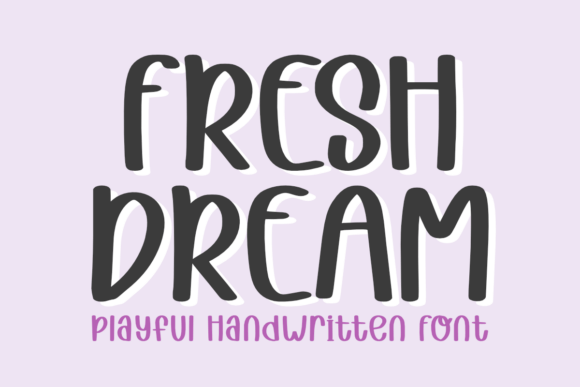
Introducing Fresh Dream Font: The Perfect Blend of Boldness and Whimsy
Are you looking for a font that can add a touch of charm and friendliness to your designs? Look no further than Fresh Dream Font, a bold yet whimsical handwritten font that’s perfect for a variety of creative projects. With its rounded curves and clean letterforms, Fresh Dream is sure to bring a cheerful, hand-drawn feel to your designs.
What is Fresh Dream Font?
Fresh Dream Font is a unique and versatile font that’s designed to add a personal touch to your designs. Its bold and whimsical style makes it perfect for kids’ projects, quotes, posters, social media graphics, and any design that needs a friendly and approachable feel.
One of the standout features of Fresh Dream Font is its rounded curves and clean letterforms. These characteristics give the font a soft and playful feel that’s sure to capture the attention of your audience. Whether you’re designing for print or digital media, Fresh Dream Font is a great choice.
Key Features of Fresh Dream Font
- Bold yet whimsical style: Fresh Dream Font has a bold and confident style that’s balanced by its whimsical and playful feel.
- Rounded curves and clean letterforms: The font’s rounded curves and clean letterforms give it a soft and approachable feel.
- Perfect for kids’ projects: Fresh Dream Font is a great choice for kids’ projects, such as children’s books, educational materials, and kids’ party invitations.
- Suitable for quotes and posters: The font’s bold and eye-catching style makes it perfect for quotes and posters.
- Great for social media graphics: Fresh Dream Font is a great choice for social media graphics, such as Facebook posts, Instagram stories, and Twitter headers.
Use Cases for Fresh Dream Font
Fresh Dream Font is a versatile font that can be used in a variety of creative projects. Here are some use cases to get you started:
- Kids’ projects: Fresh Dream Font is perfect for kids’ projects, such as children’s books, educational materials, and kids’ party invitations.
- Quotes and posters: The font’s bold and eye-catching style makes it perfect for quotes and posters.
- Social media graphics: Fresh Dream Font is a great choice for social media graphics, such as Facebook posts, Instagram stories, and Twitter headers.
- Branding and packaging: The font’s unique and playful style makes it a great choice for branding and packaging design.
Why Choose Fresh Dream Font?
There are many reasons why you should choose Fresh Dream Font for your next creative project. Here are a few:
- Unique and playful style: Fresh Dream Font has a unique and playful style that’s sure to capture the attention of your audience.
- Versatile and adaptable: The font is versatile and adaptable, making it perfect for a variety of creative projects.
- Easy to read and understand: Fresh Dream Font is easy to read and understand, making it perfect for body text and headings.
- Supports multiple languages: The font supports multiple languages, making it a great choice for global brands and businesses.
Fresh Dream Font is a bold yet whimsical handwritten font that’s perfect for a variety of creative projects. With its rounded curves and clean letterforms, it’s sure to bring a cheerful, hand-drawn feel to your designs. Whether you’re designing for print or digital media, Fresh Dream Font is a great choice.
- What is Fresh Dream Font?: Fresh Dream Font is a bold yet whimsical handwritten font that’s perfect for a variety of creative projects.